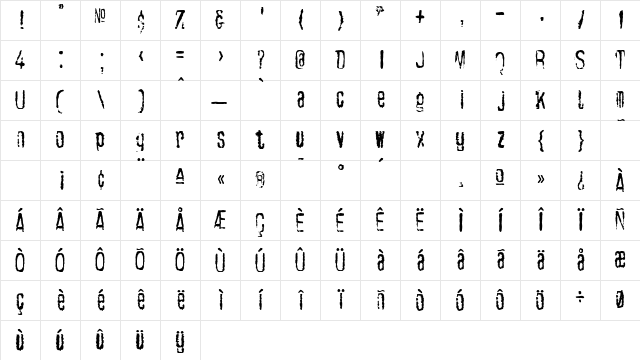
CablegramZagreb Regular Free Font
CablegramZagreb Regular
Design Context for CablegramZagreb
CablegramZagreb is a composed and adaptable typeface that performs quietly and consistently across a wide range of design contexts.